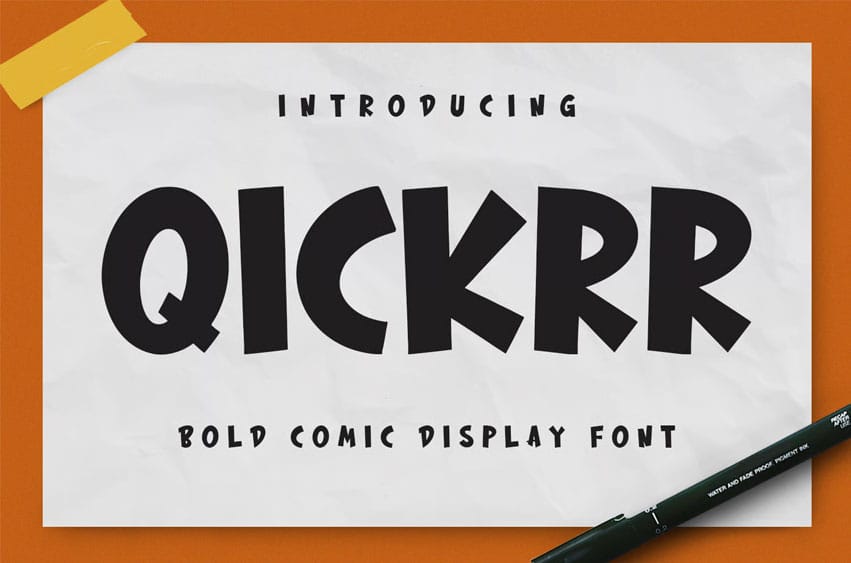
Qickrr Font is a bold, comic-style handwritten display font. It features thick strokes and playful characters, along with some ligatures, to enhance your creative projects. Qickrr Font supports over 100 languages, making it versatile for various applications.
This font is ideal for logo design, social media graphics, movie titles, book covers, and even for both short and long texts. It also pairs well as a secondary font with sans-serif or serif typefaces. Create stunning designs using Qickrr Font!